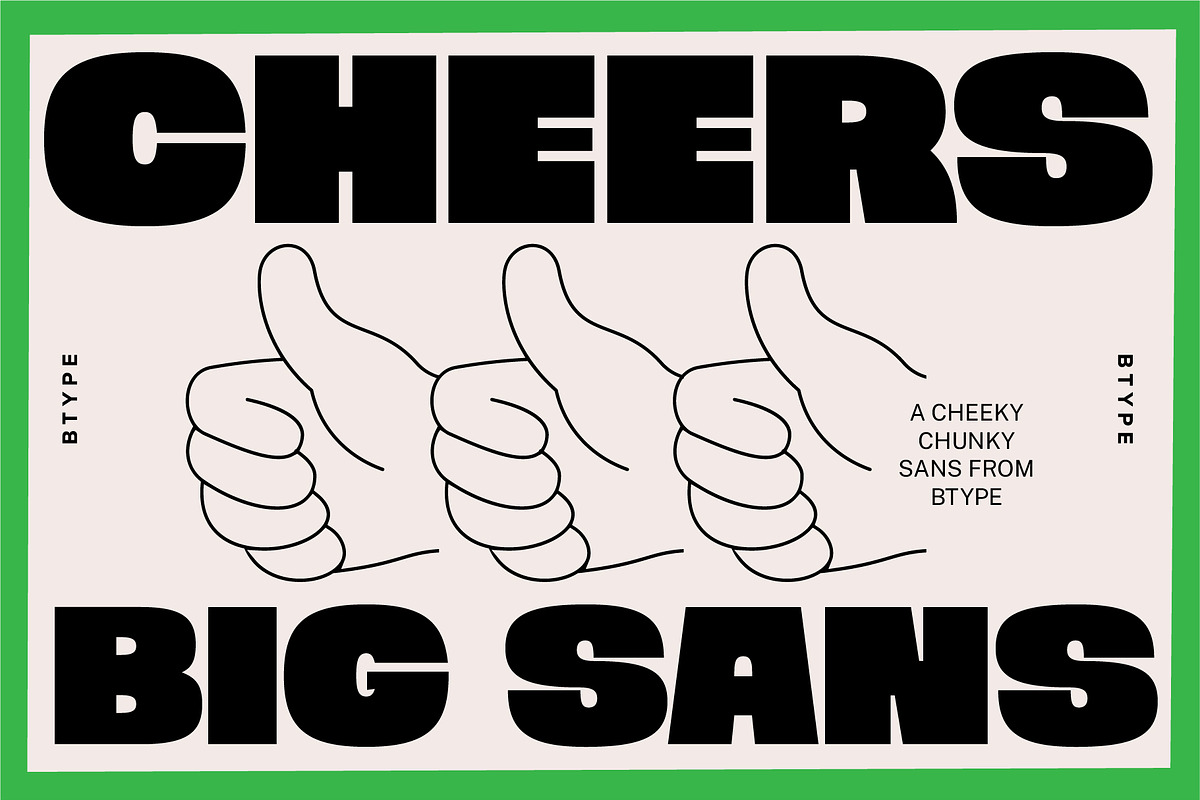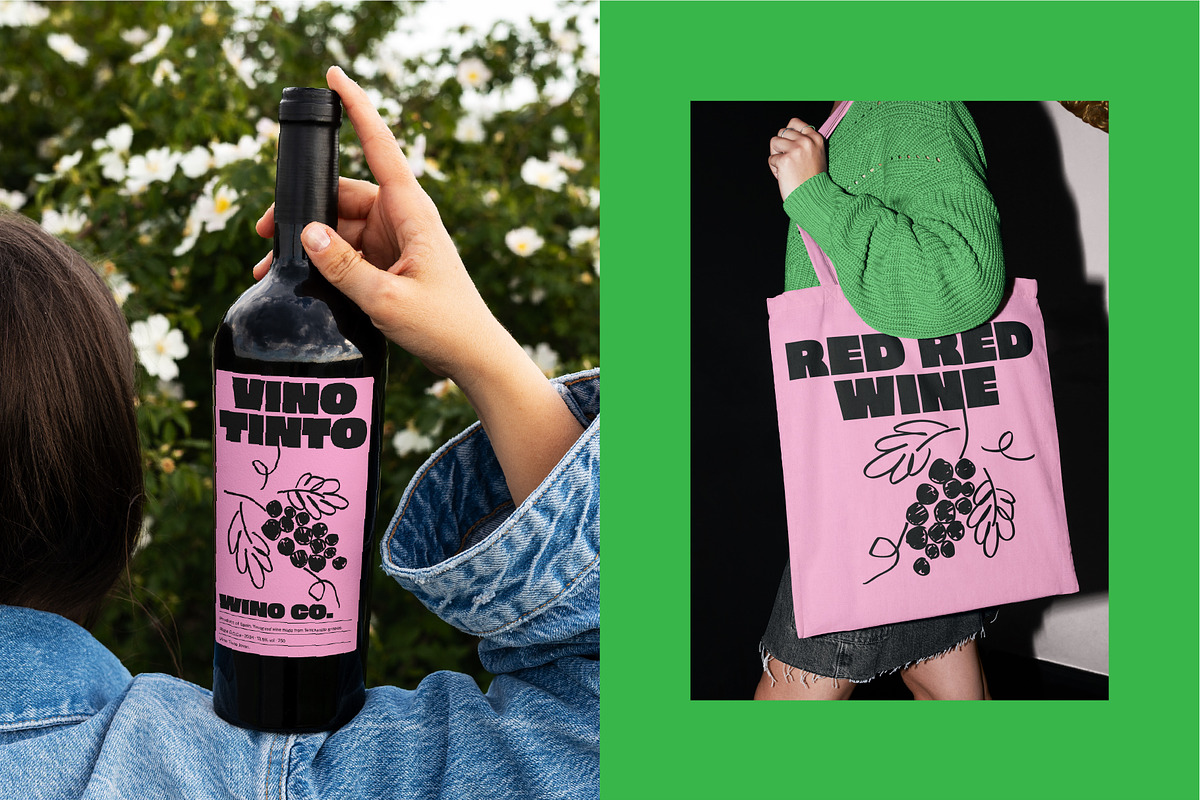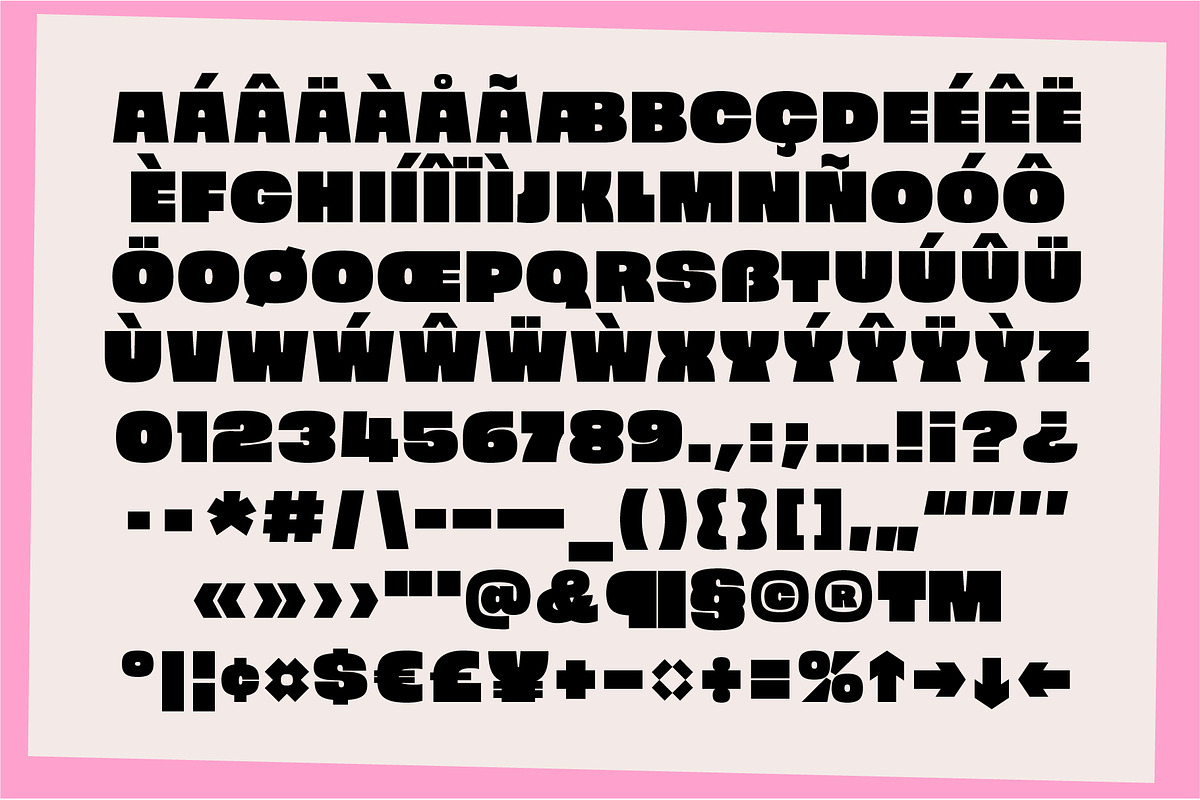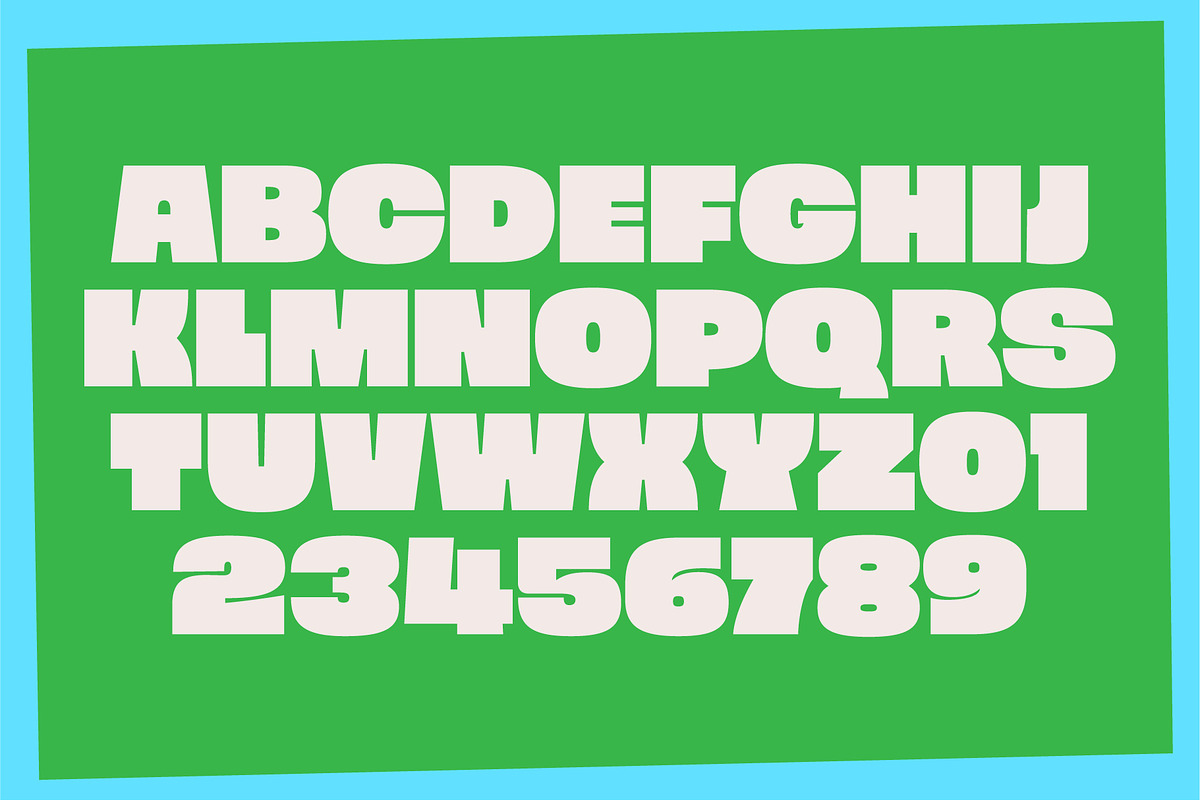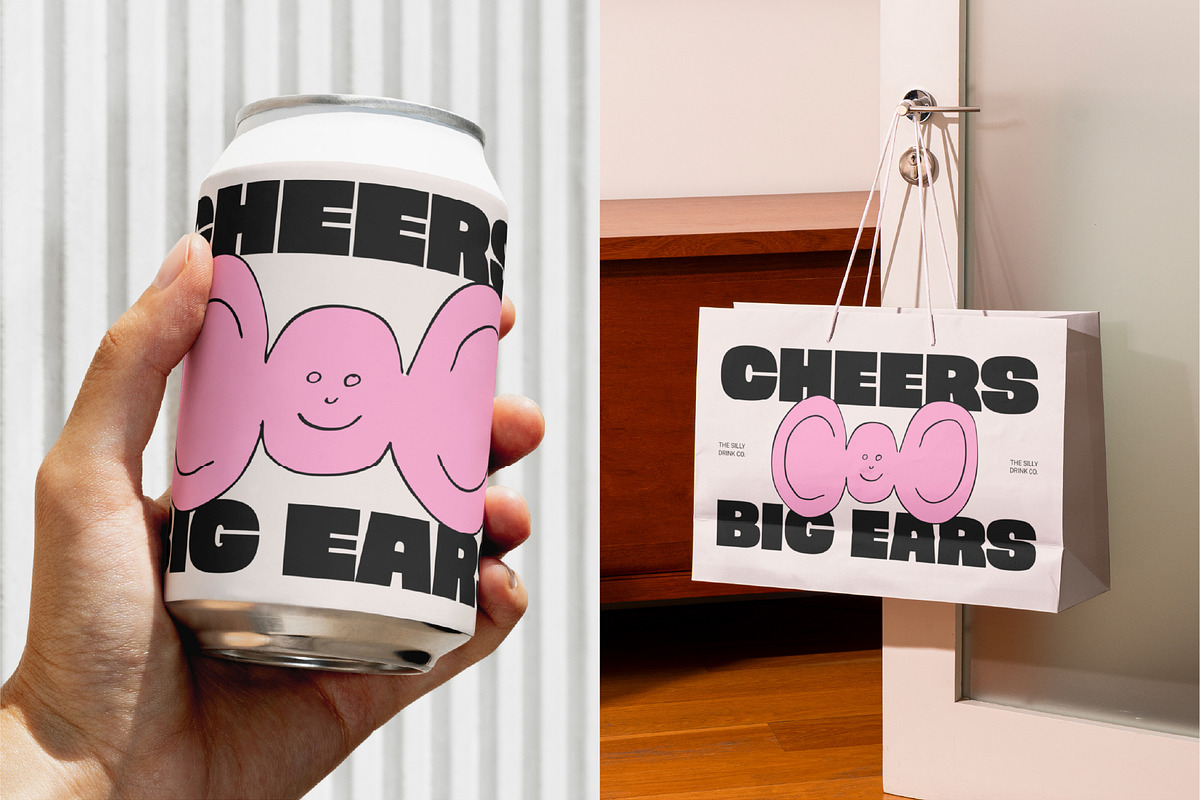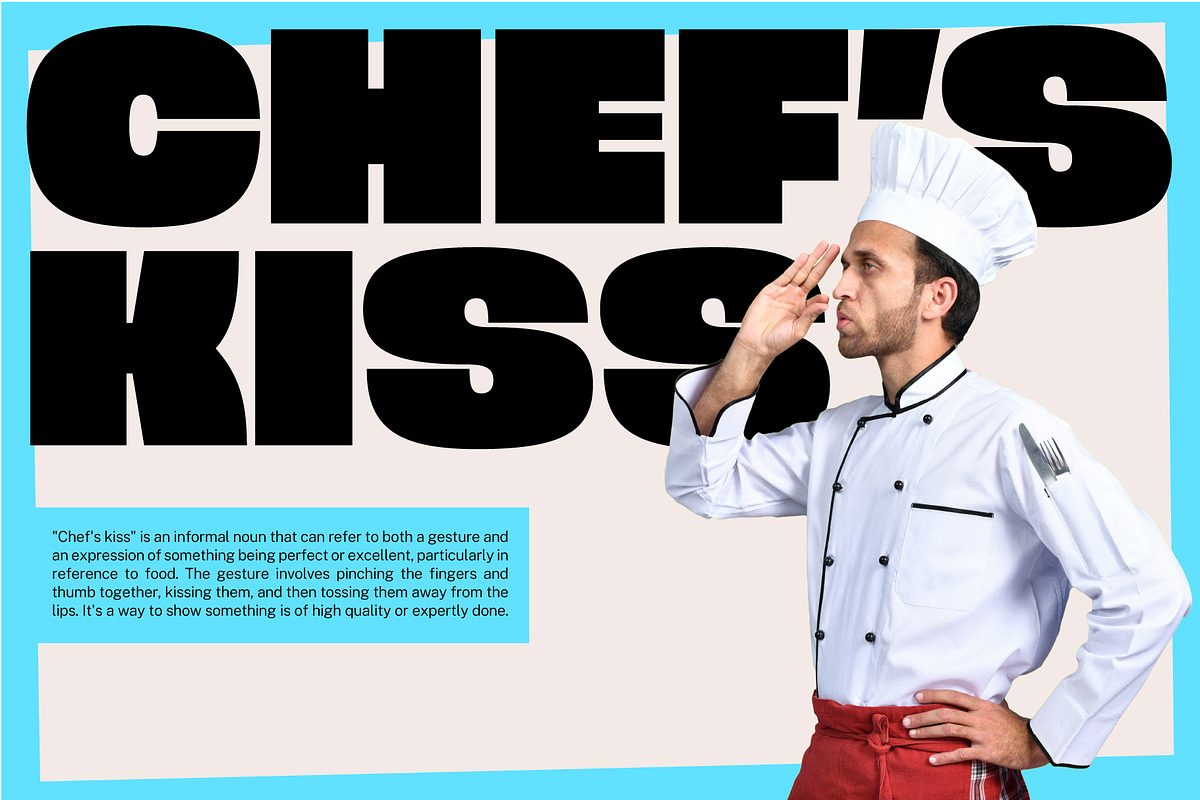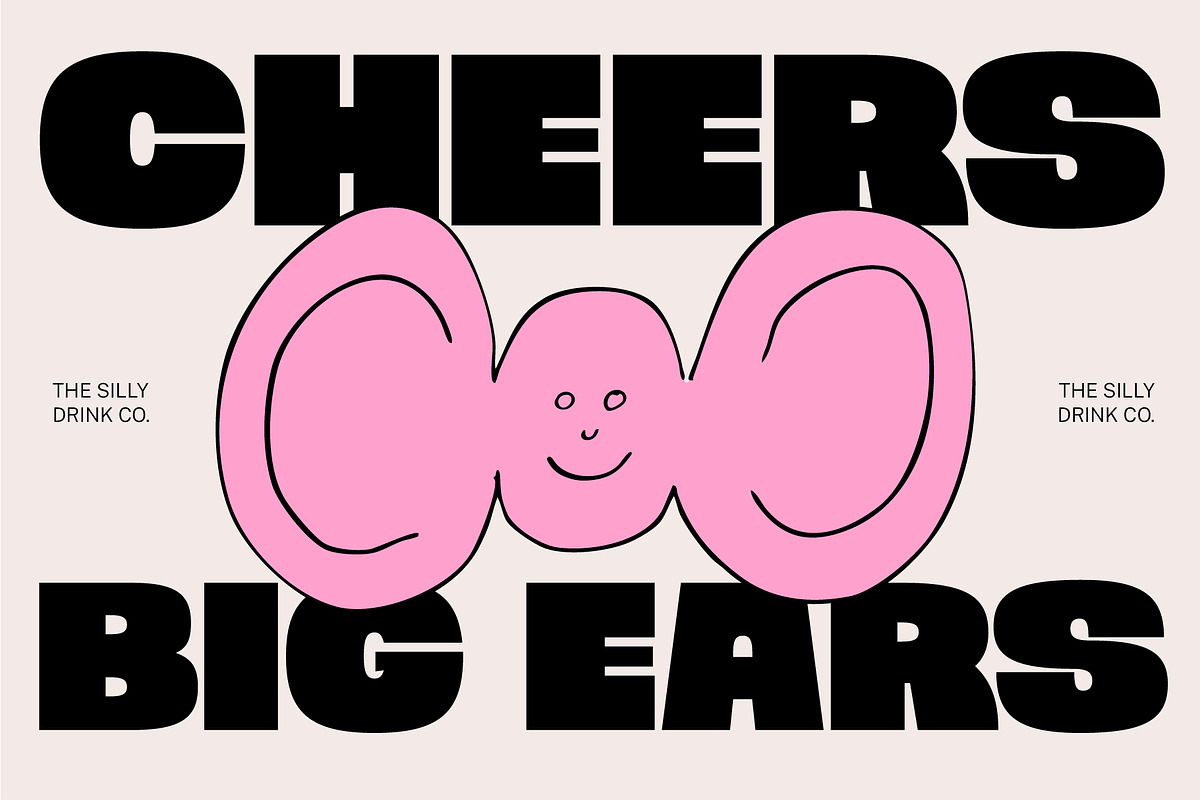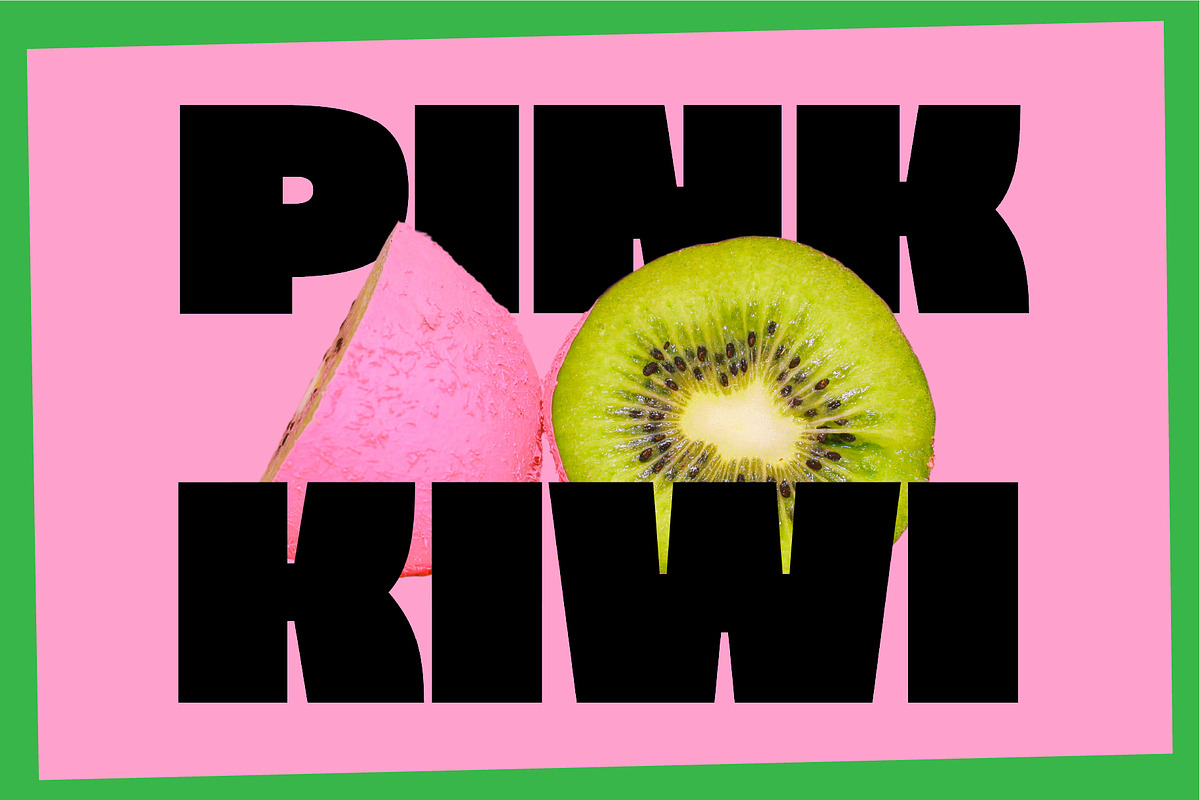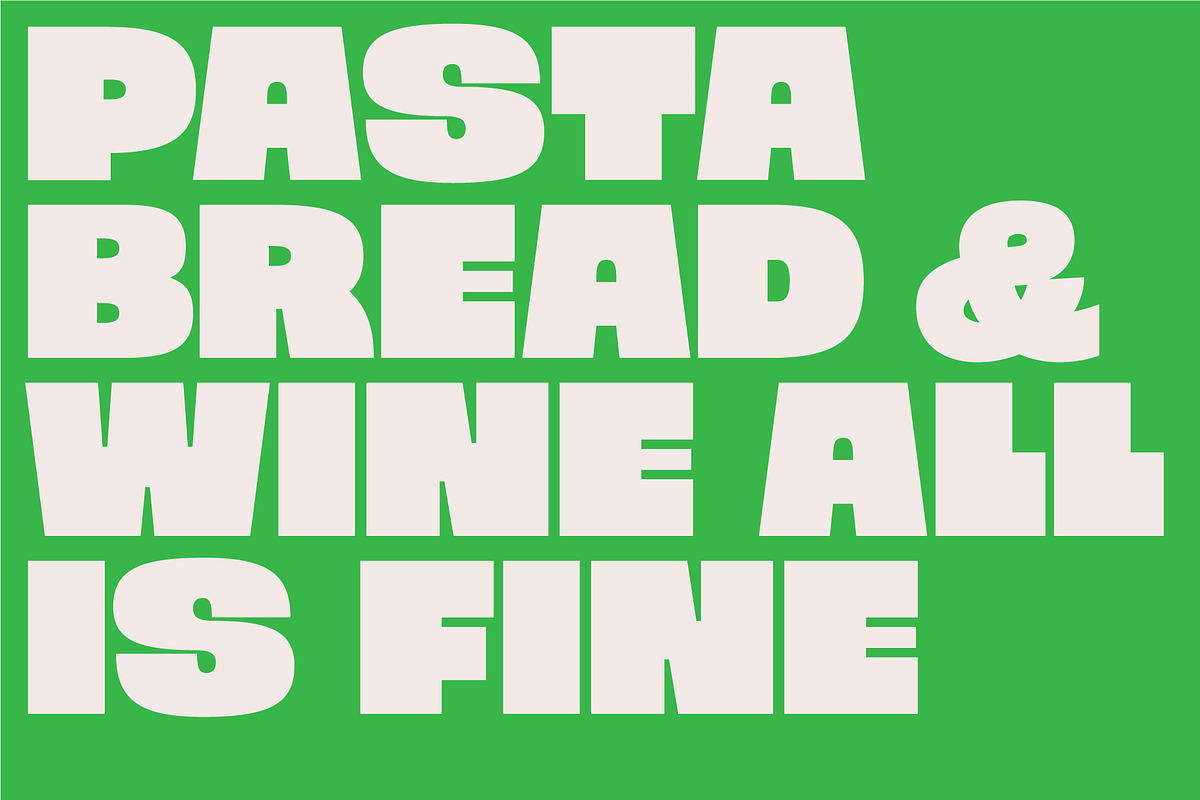
Cheers Big Sans - Chunky Sans Serif
Cheers Big Sans is a bold, all-caps display font made for standing out — big type with big personality. Perfect for packaging, labels, logos, and branding projects that need to shout across the shelf (or bar). Whether you’re designing drinks, snacks, or something playful and loud, this chunky sans serif brings the attitude.
- All-caps character set
- Numbers, punctuation and symbols
- Latin language support